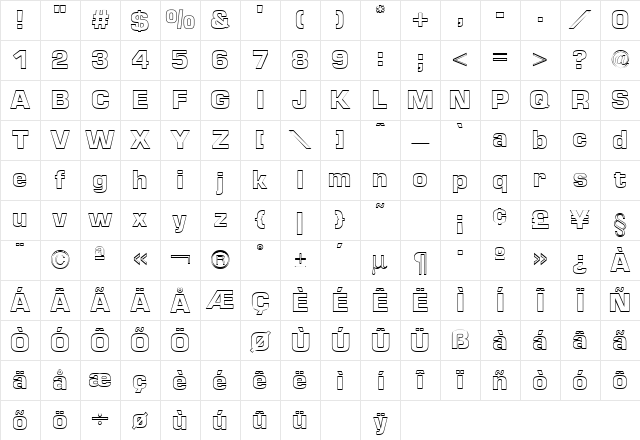
Euro Bold
Complete Euro Bold glyph index. Displaying only characters natively supported by Euro Bold font.
Design Context for Euro
Euro is a composed and adaptable typeface that performs quietly and consistently across a wide range of design contexts. Its bold stroke weight gives it real presence on the page.
Pro Tip: Use Euro in both headline and body roles to test its range before committing to a single application.